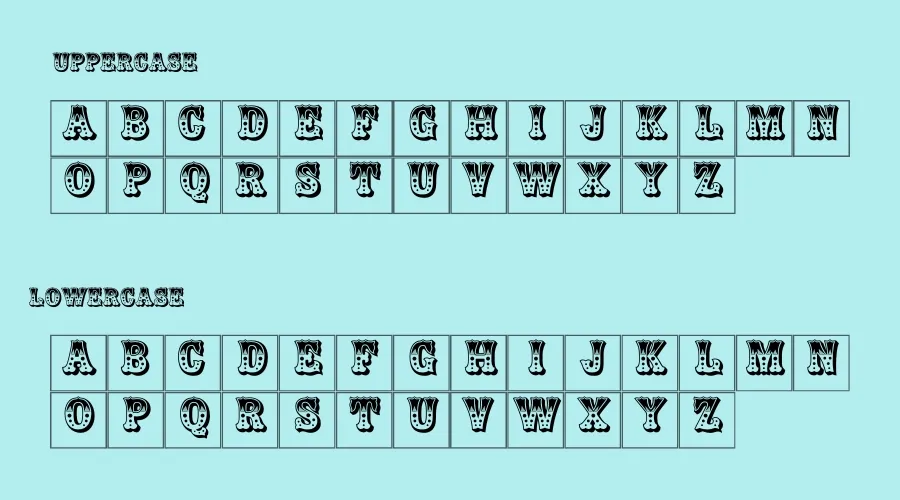
Zebrawood font
About Zebrawood Font
The Zebrawood Font was invented by three well-known graphic developers named Carl Crossgrove, Carol Twombly, and Kim Buker Chansler. This font was published in 1994 as a chromatic typeface. It is available in both OpenType and TrueType file formats that are perfect for your both working systems Mac and Windows.
This font has two styles and was released through Adobe. It contains various types of characters such as uppercase letters, numerals, digits, symbols, signs, and punctuations.
When this stunning texture was released in the font world, it gained soo much popularity in a very short time, due to its stylish and trendy texture. The copy-and-paste function of this typeface is amazing and it will assist you to create urgent projects. You may easily download and utilize this font for your various purposes.
The Zebrawood Font is perfect for making different designs. You may easily utilize this font for making stylish and trendy projects such as logos, printings, posters, social media posts, and many other purposes. It is widely used in various print, web, and digital media in an incredibly diverse range of industries, and advertising.
The main focus of the font is its distinct texture, which makes it perfect for headlines, logos, and package design. This outstanding typeface provides an interesting combination with palm springs font and creates new elegant projects.
Where can we utilize Zebrawood Font?
This typeface is a unique decorative typeface. It is an ideal choice for anyone looking to add some personality to their documents, presentations, product packaging, etc.